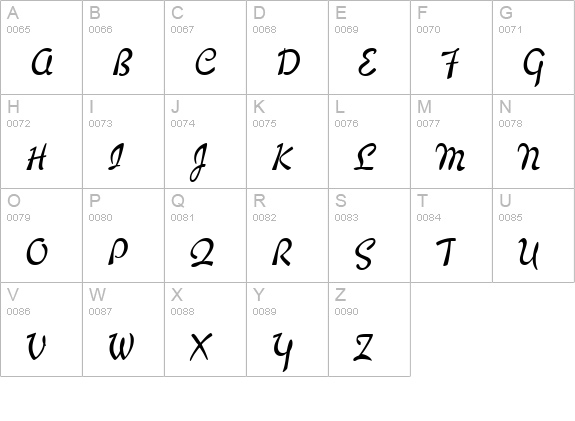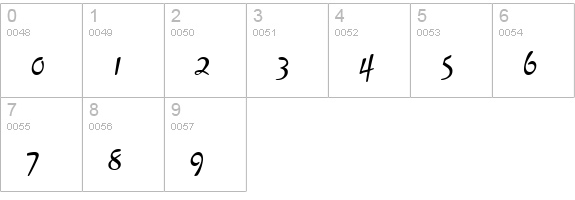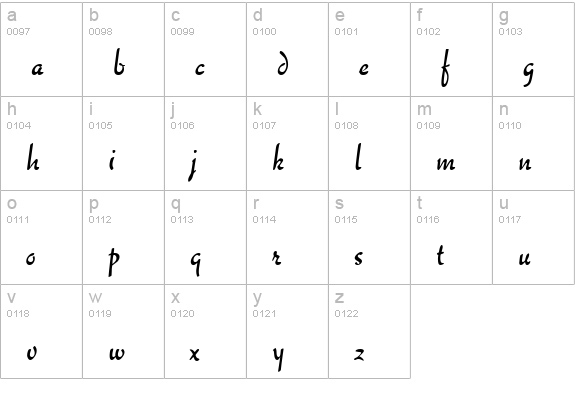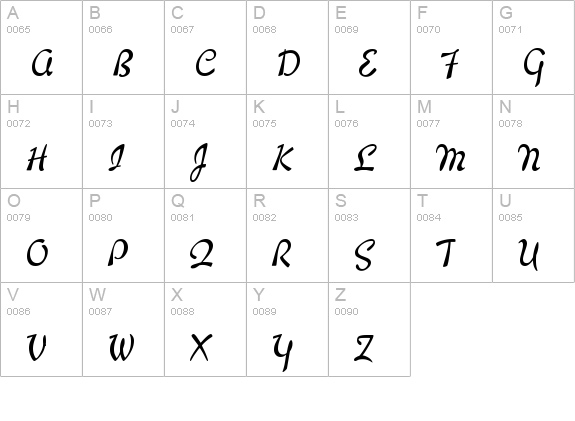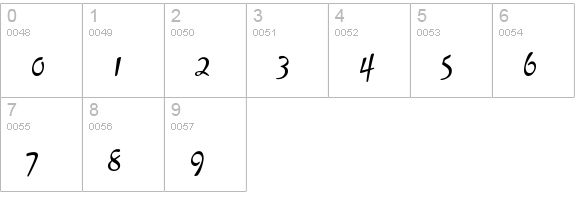
Gourmet Font Details
The Gourmet font is a delightful and sophisticated typeface that exudes elegance and charm. With its graceful curves and intricate details, this font is perfect for adding a touch of luxury to your designs. Whether you're working on a menu, invitation, or branding project, Gourmet will elevate your text to a whole new level of sophistication. What makes Gourmet even more appealing is that it is available for free download at FontsMarket.com. This means you can easily access this beautiful font and use it in your projects without any cost. Don't miss out on this opportunity to enhance your designs with the exquisite Gourmet font. Download it now and elevate your creations to a whole new level of elegance and style.